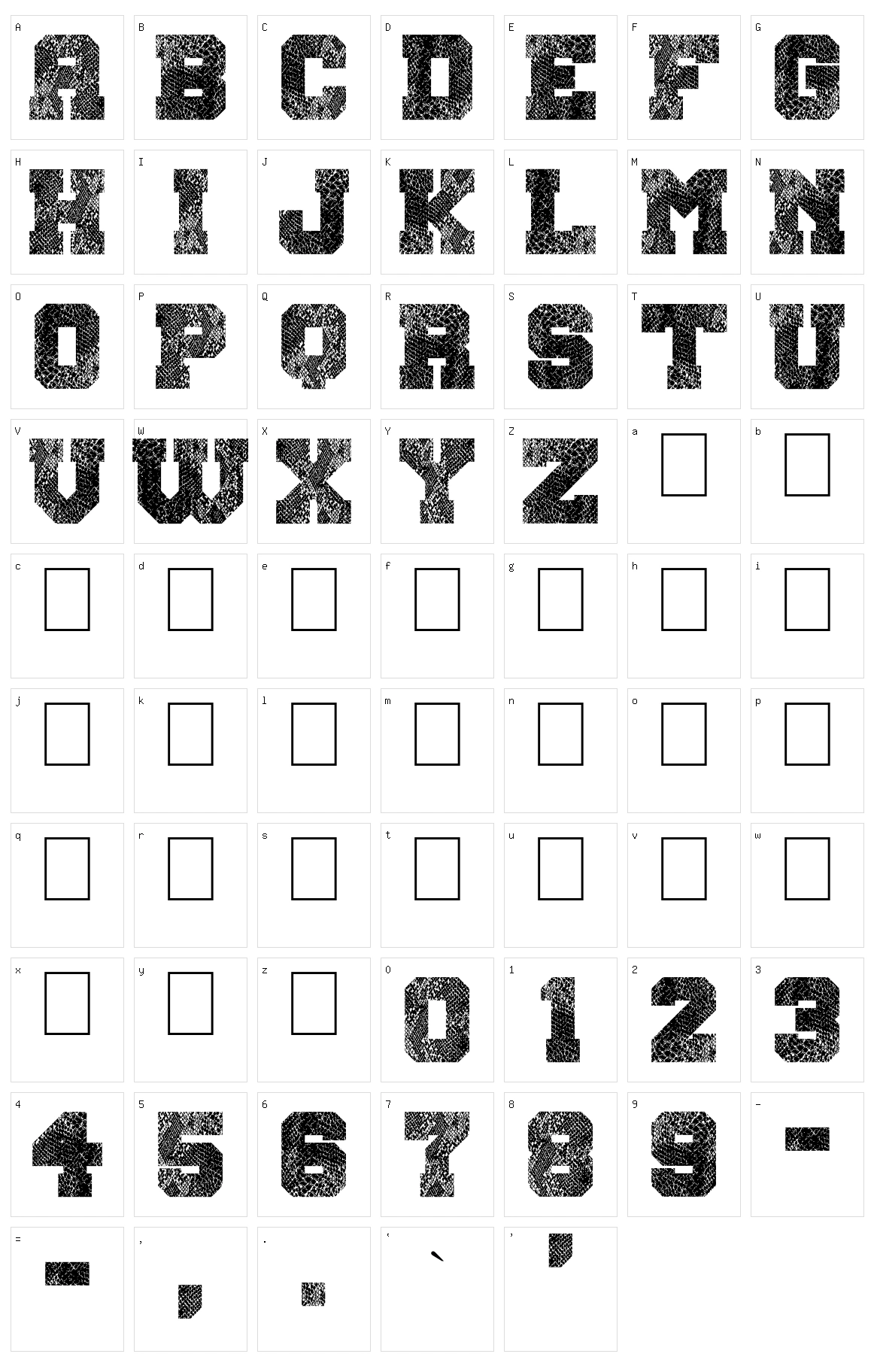
The free font Snake Jacket is carefully designed by imagex, showcasing a thoughtful balance of creativity and usability and falls under the Old School font style. When you download the ZIP file, it contains only 427.1 KB of font files, making it lightweight and quick to download. Please review the license details below to understand permitted usage and distribution rights. If license information is not available, we recommend using this font for personal projects only or contacting the author directly for commercial usage permissions.